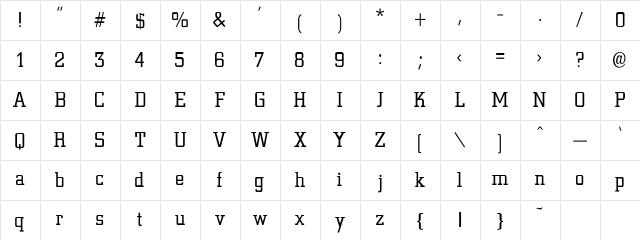
Nite-Light-Light Regular
Design Context for Nite-Light-Light
Nite-Light-Light is a composed and adaptable typeface that performs quietly and consistently across a wide range of design contexts. Its slender proportions lend an understated elegance to any composition.